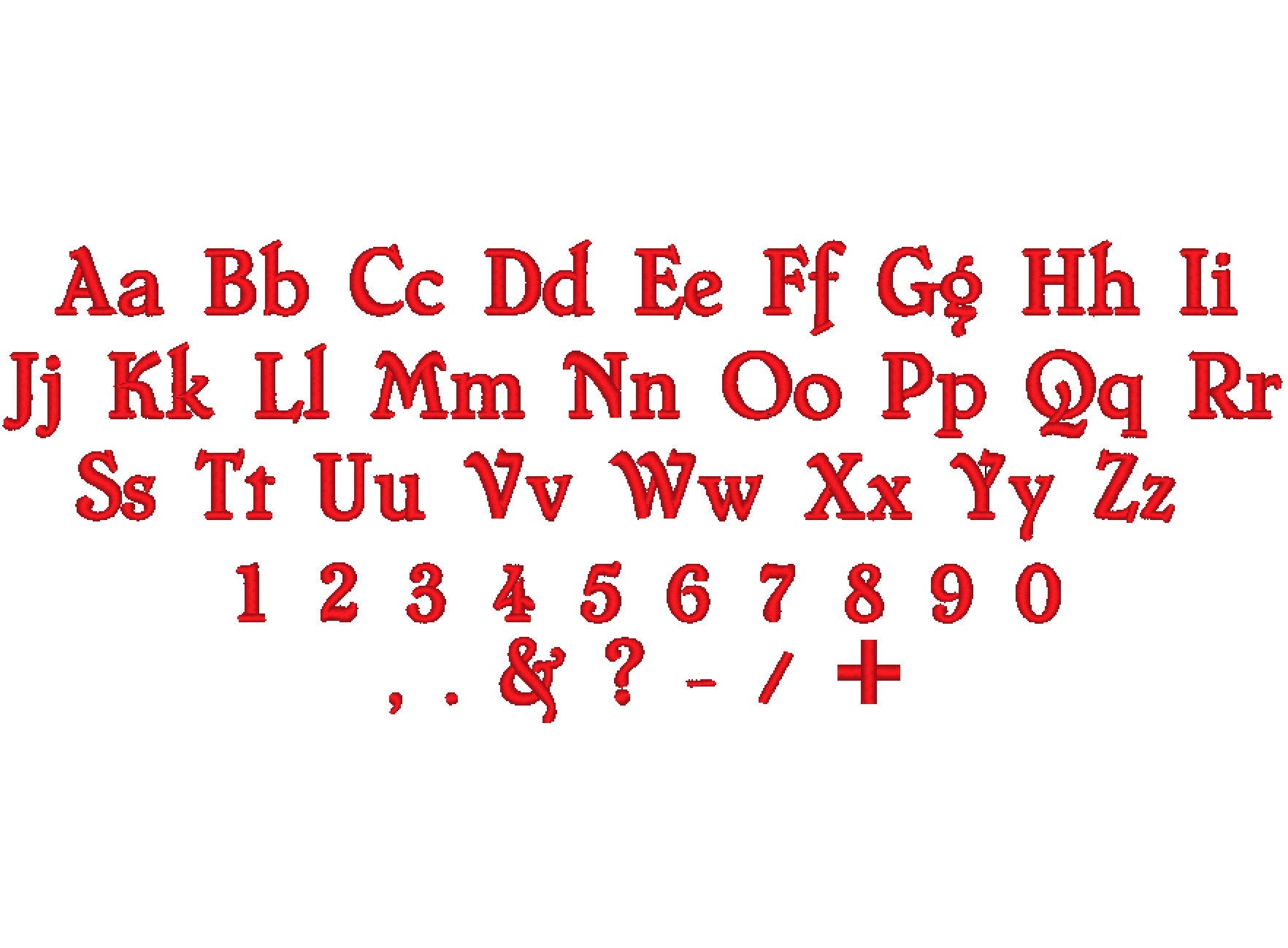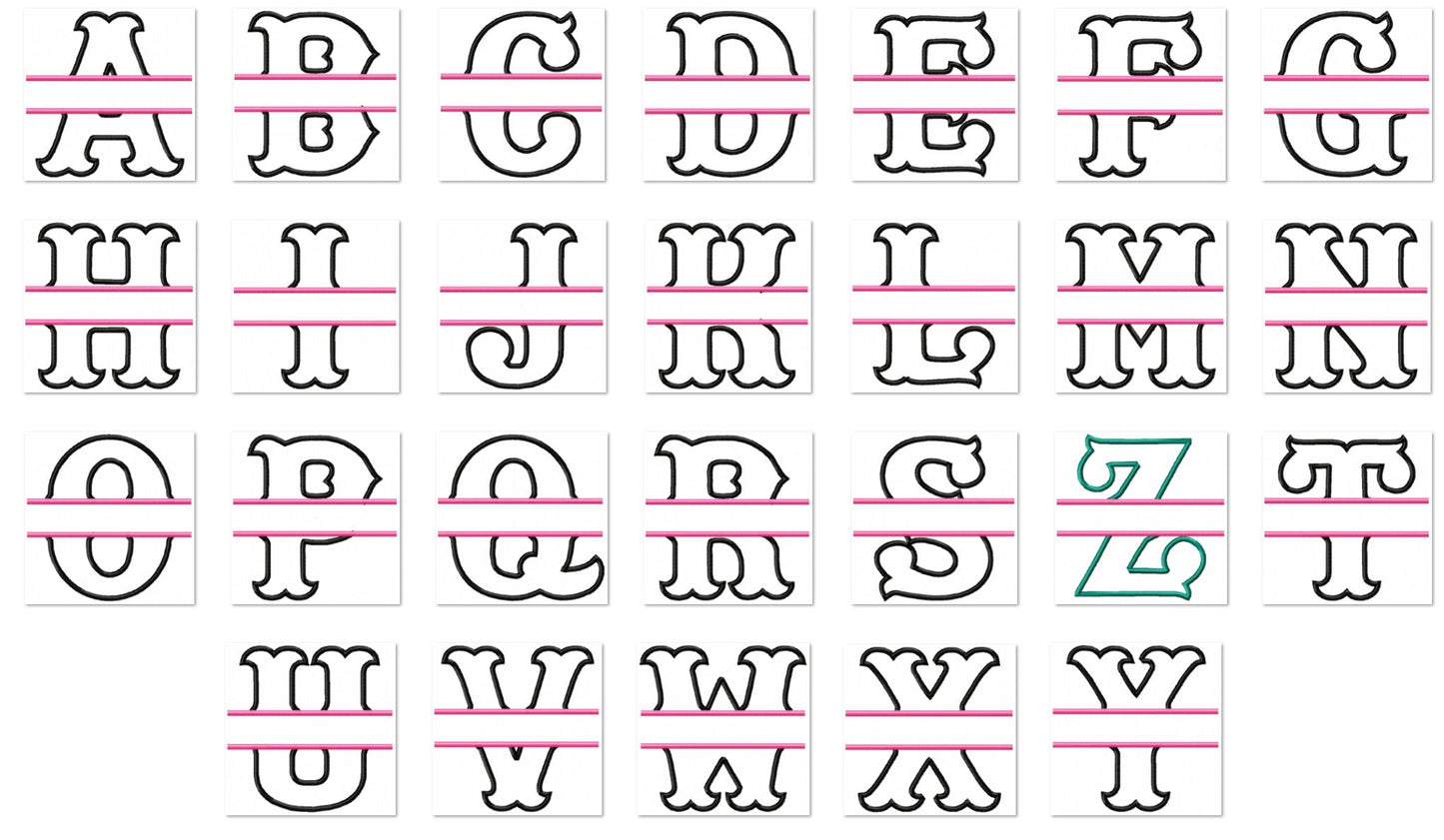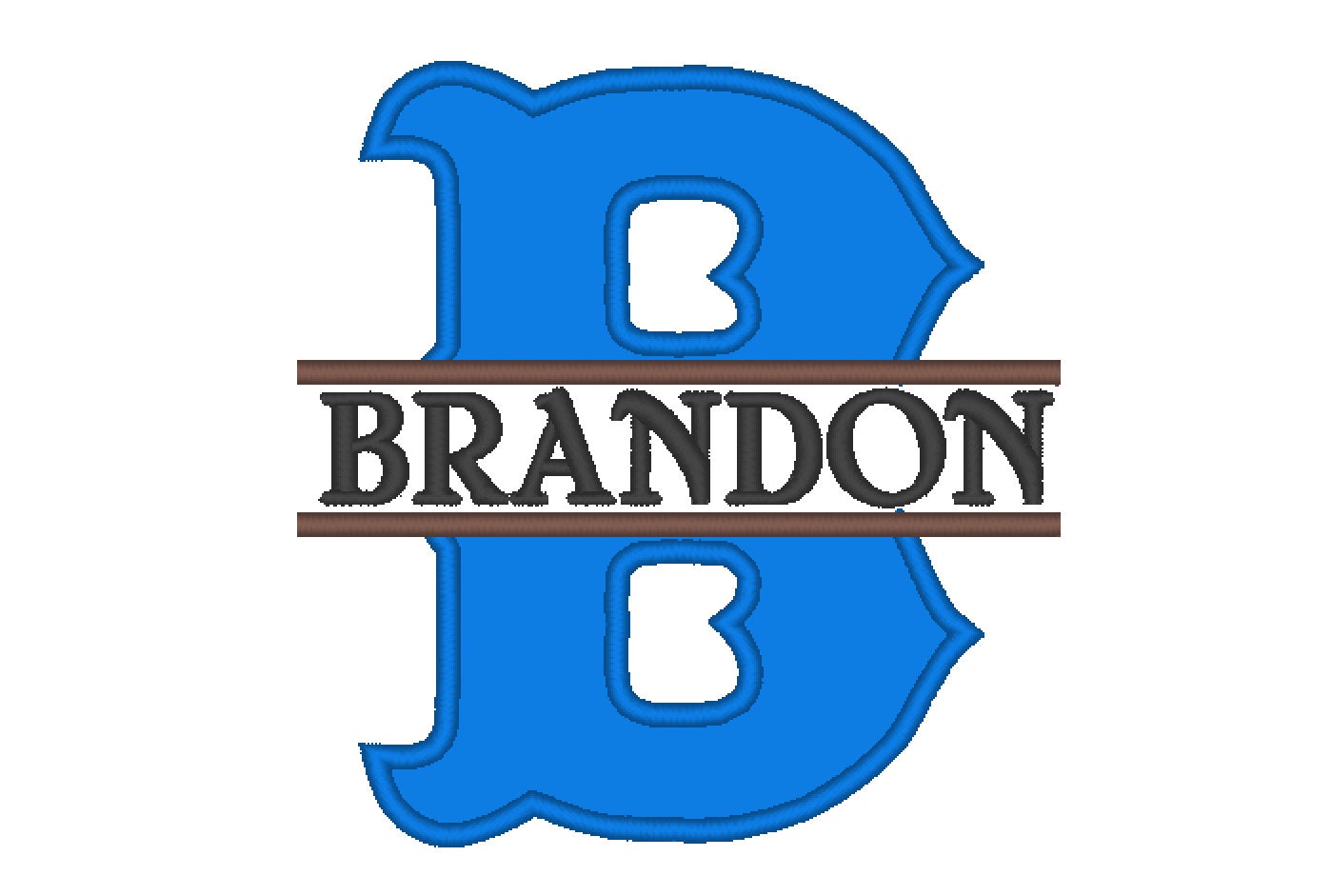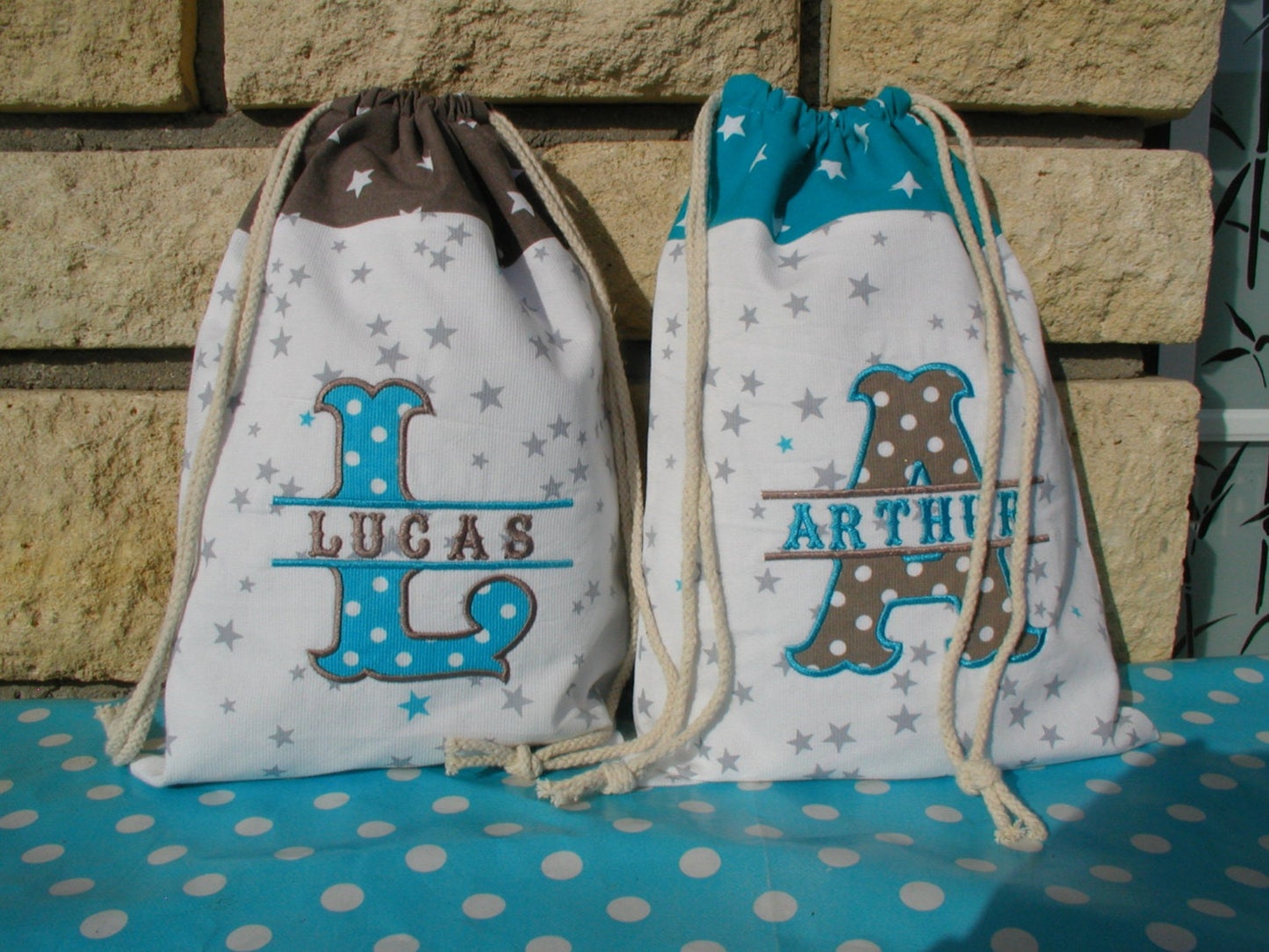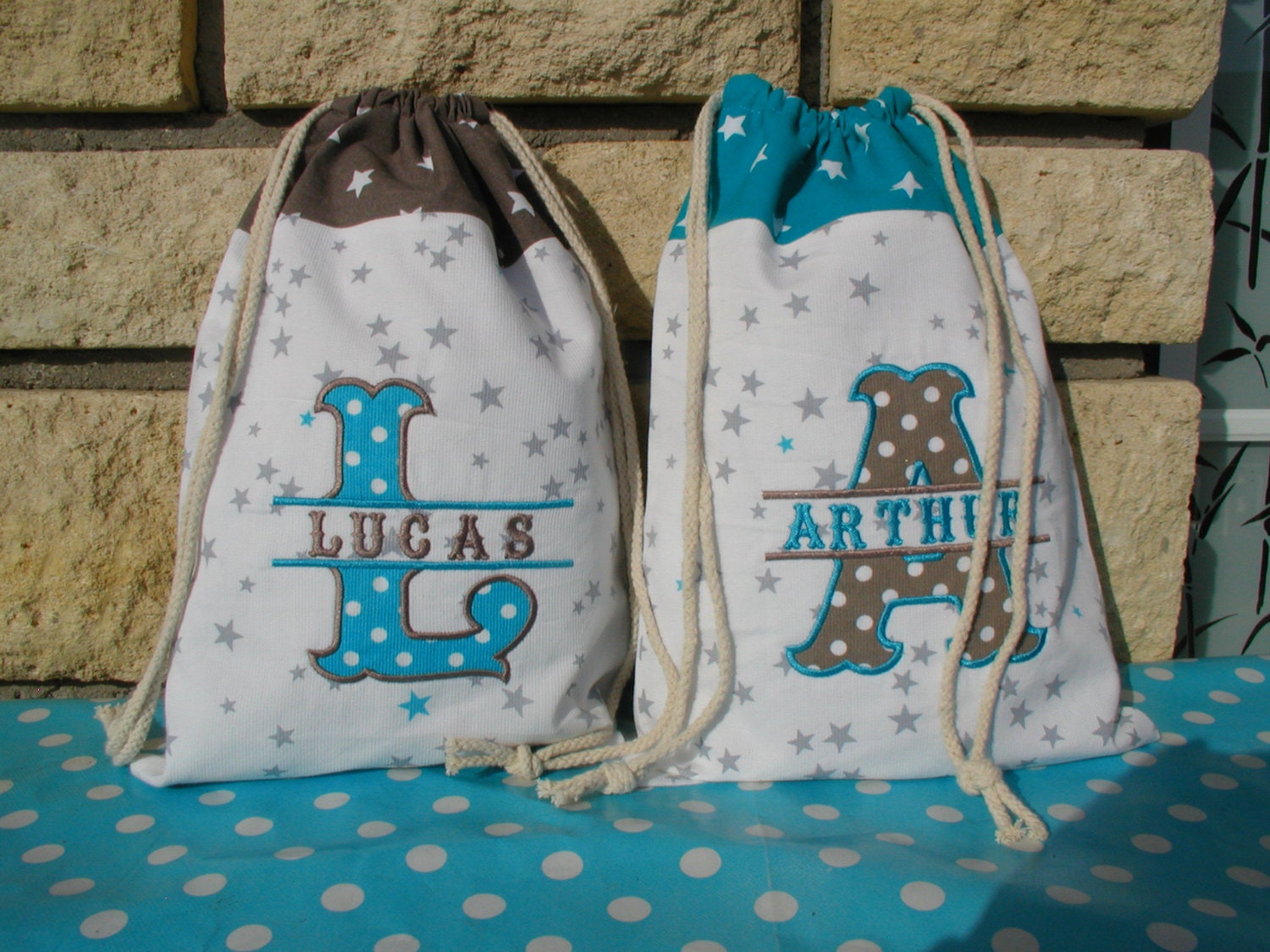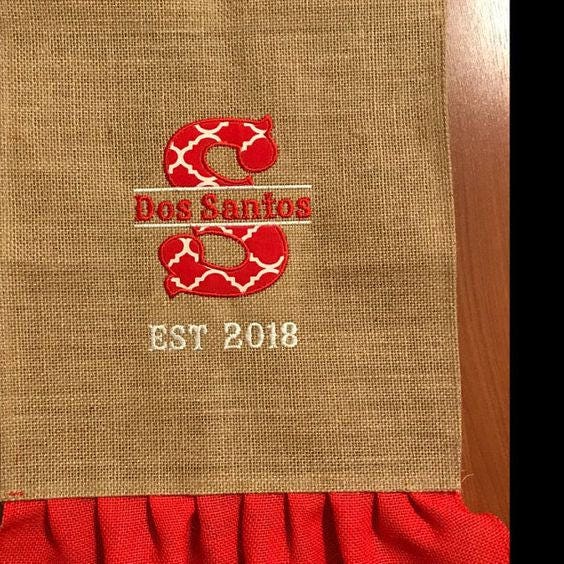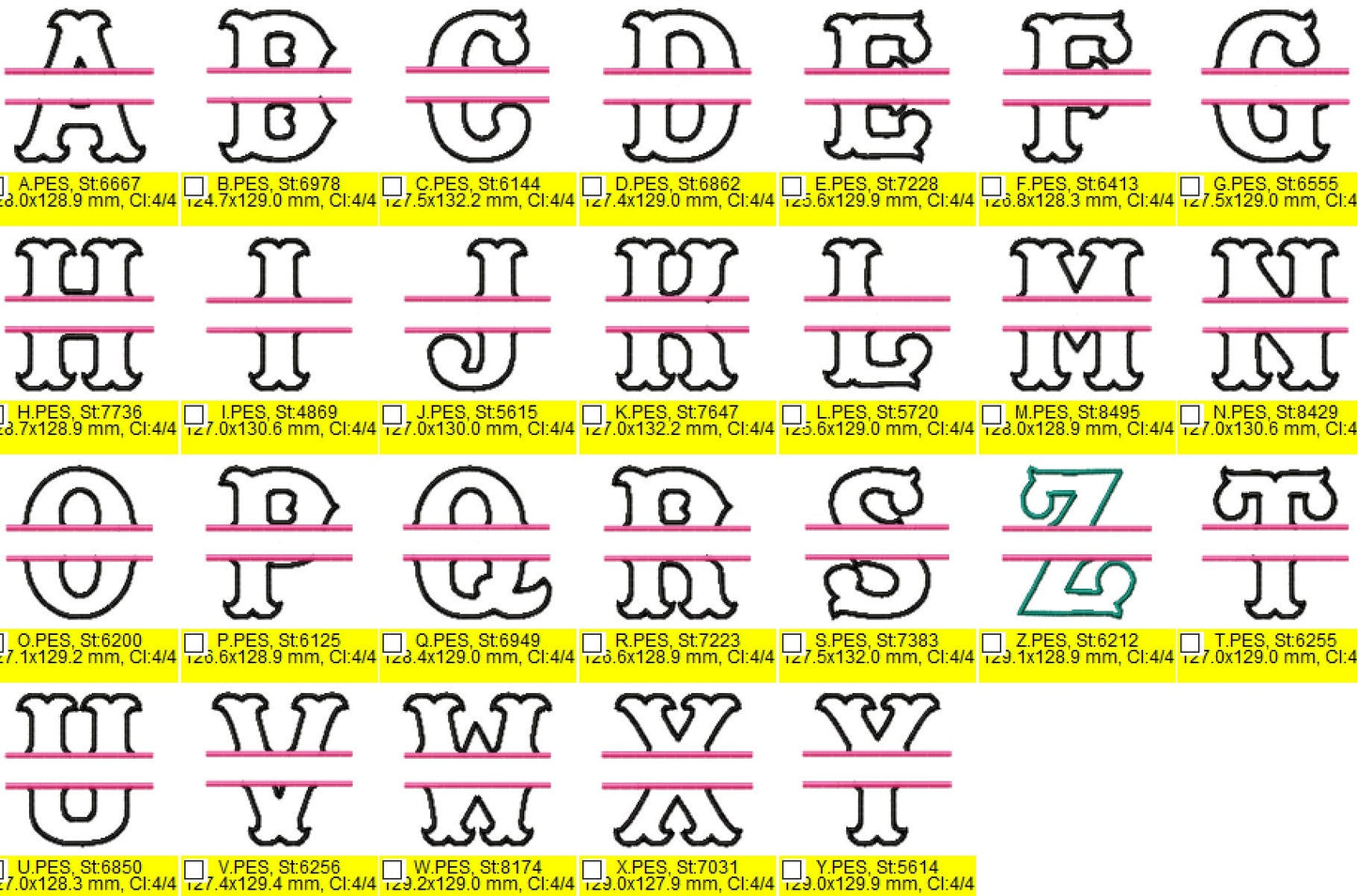
Split Font , Monogram Set Mini Font
Or click to open the linkSplit monogram applique letters with a matching mini font that fits into the split. Great for garden flags, banners, pillows and home decor.
The split applique letters come in 3, 4, 5, 6, 7 and 8 inches. The mini font has uppercase and lowercase letters and numbers 0 to 9, in eight small sizes from 0.4 to 2.4 inches.
- Split monogram applique letters, 3 to 8 in
- Mini font: uppercase, lowercase, numbers 0-9
- Mini font 0.4 to 2.4 in